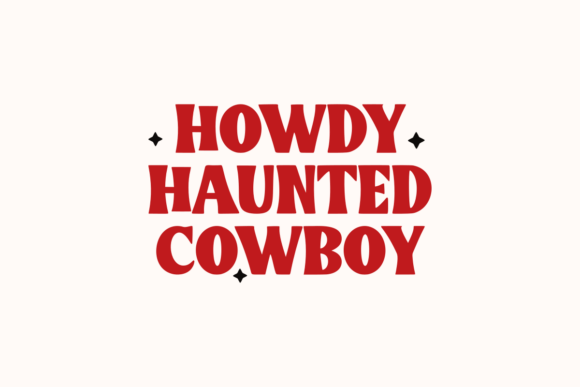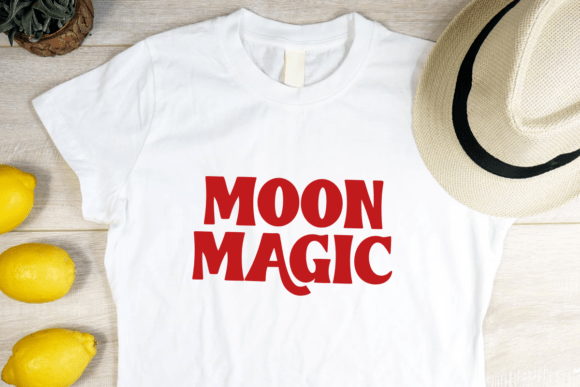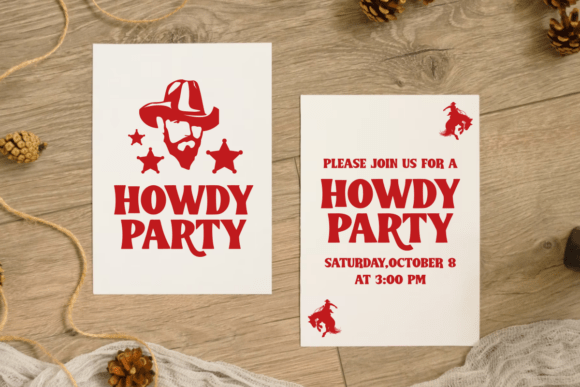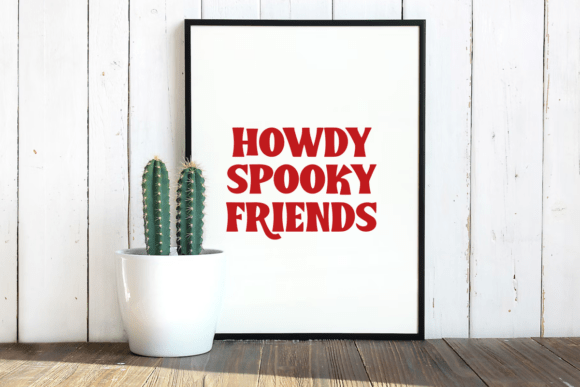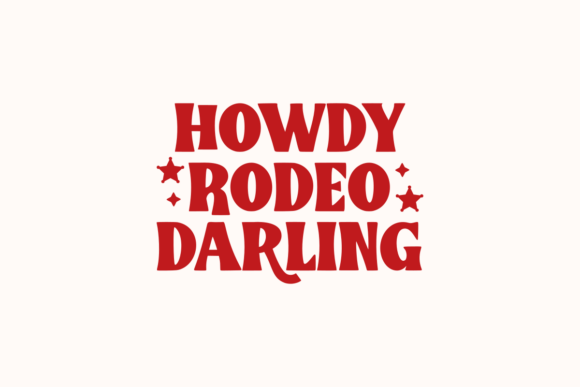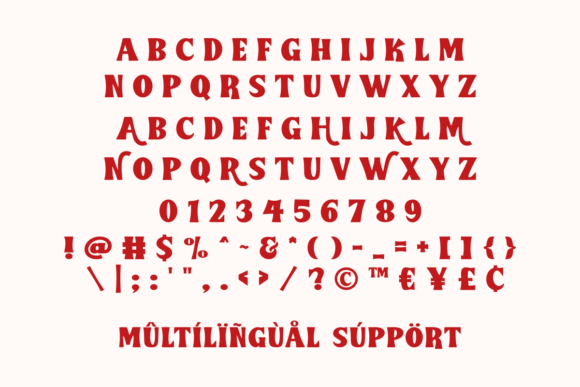
Introduction to Howdy Rodeos Font
Immerse yourself in the stylish allure of Howdy Rodeos, an artisanal display font, meticulously sculpted for the branding connoisseur.
Exuding a distinctive character, it becomes the quintessential choice for breathing life into crafts such as elegant t-shirts, plush pillows, sophisticated mock-up frames, fashionable hats, and creative key chains This versatile gem perfectly embellishes posters, charming invitation cards, and personalized mugs.
Key Features of Howdy Rodeos Font
Why Choose Howdy Rodeos Font?
Howdy Rodeos Font offers exceptional quality and versatility, making it a valuable addition to your design toolkit. Whether you’re creating for personal projects or commercial use, Howdy Rodeos Font delivers professional results.